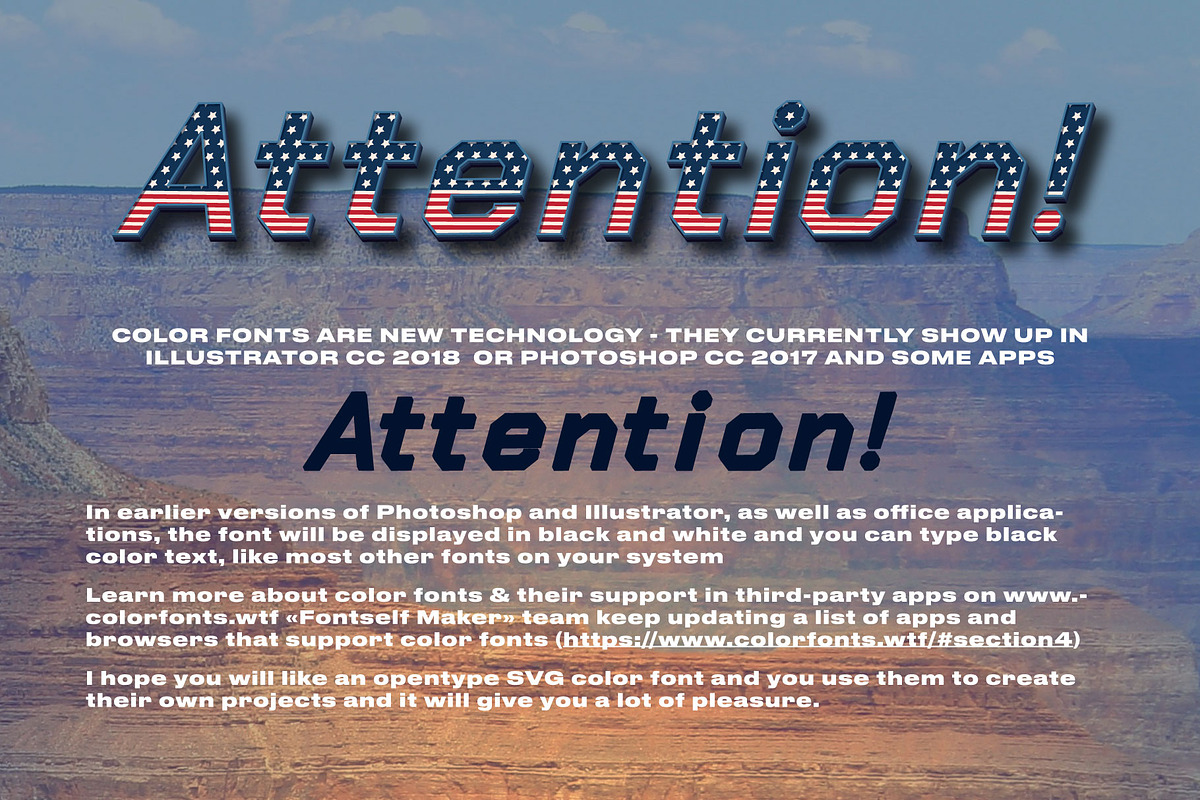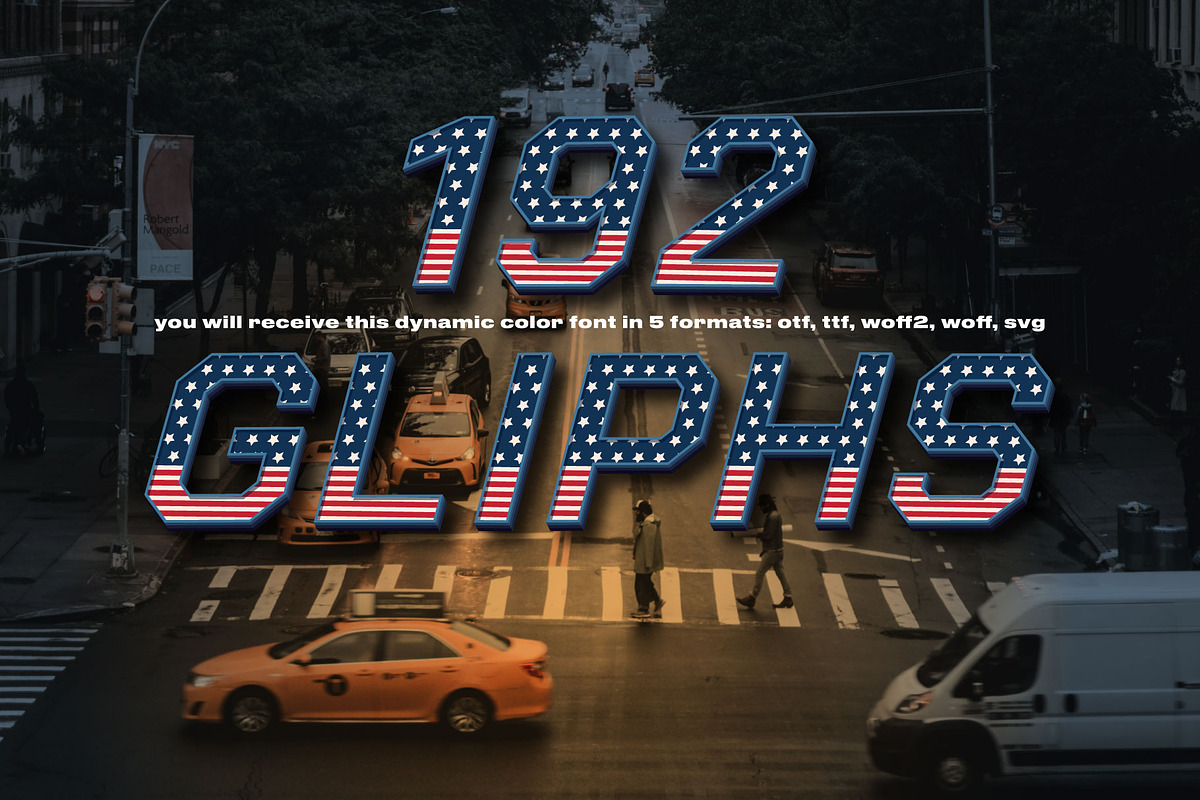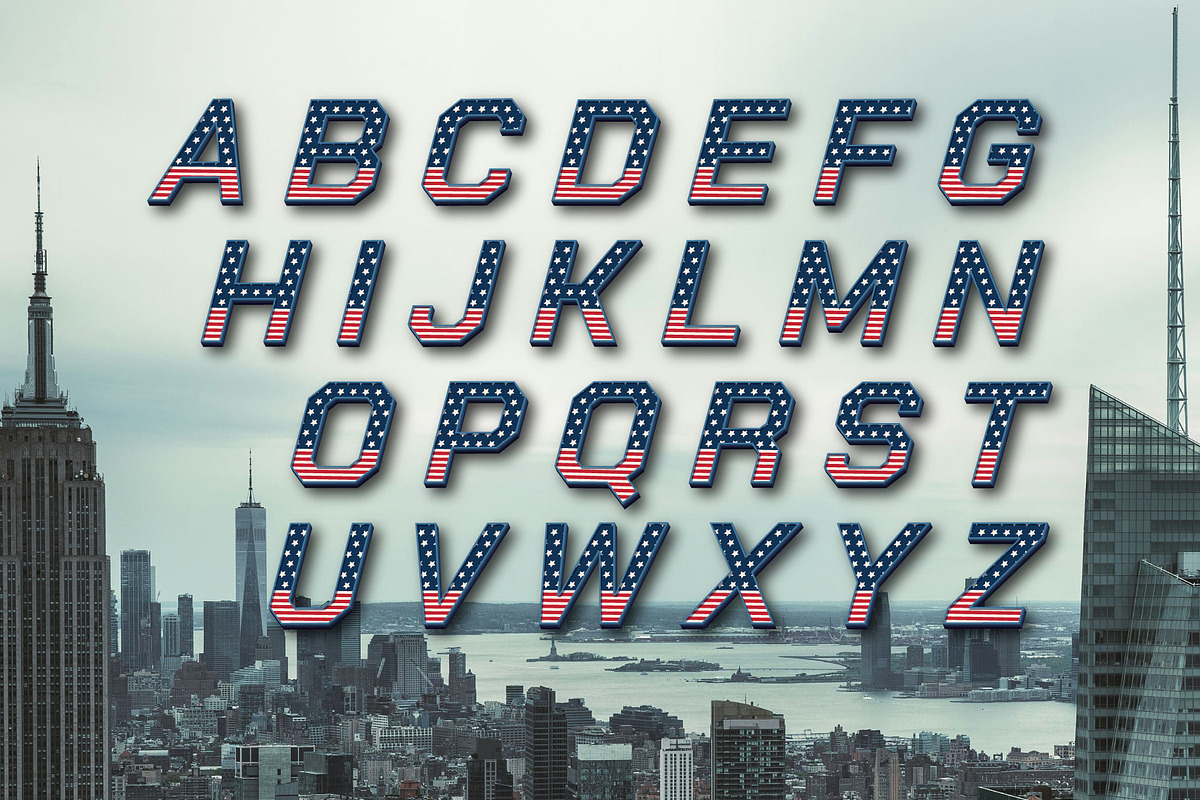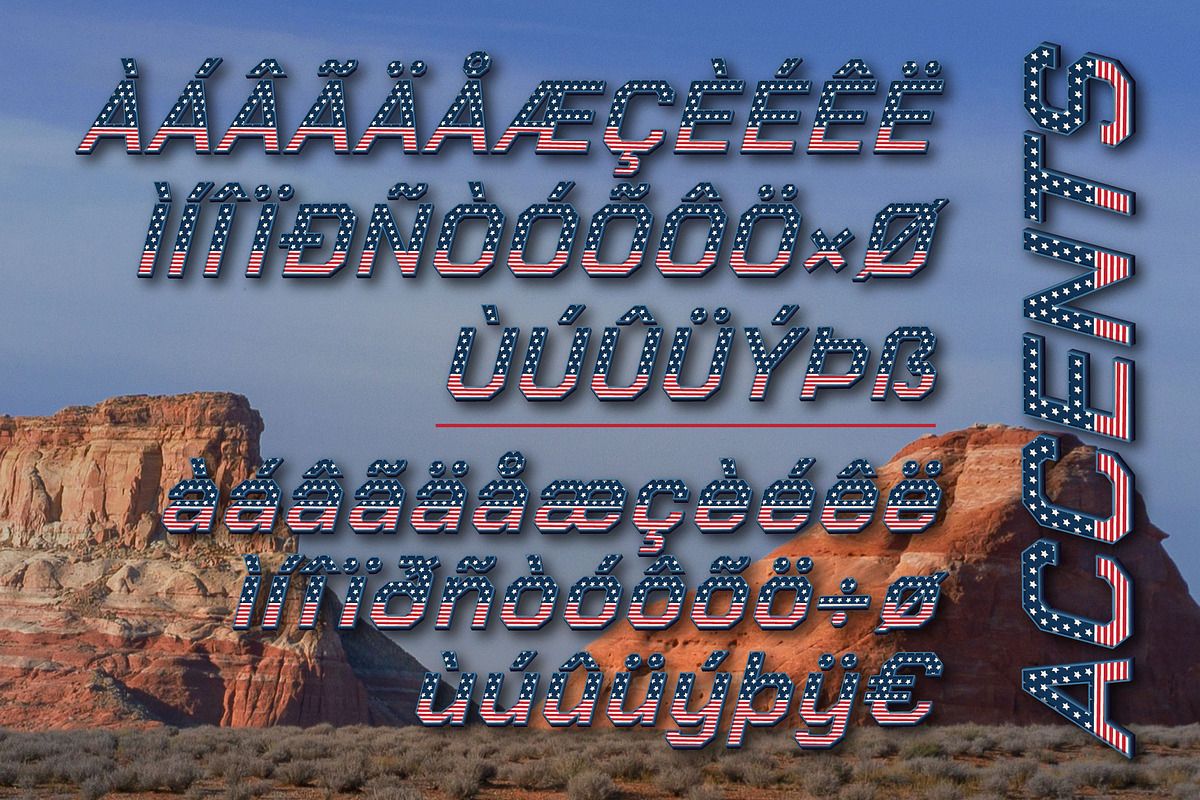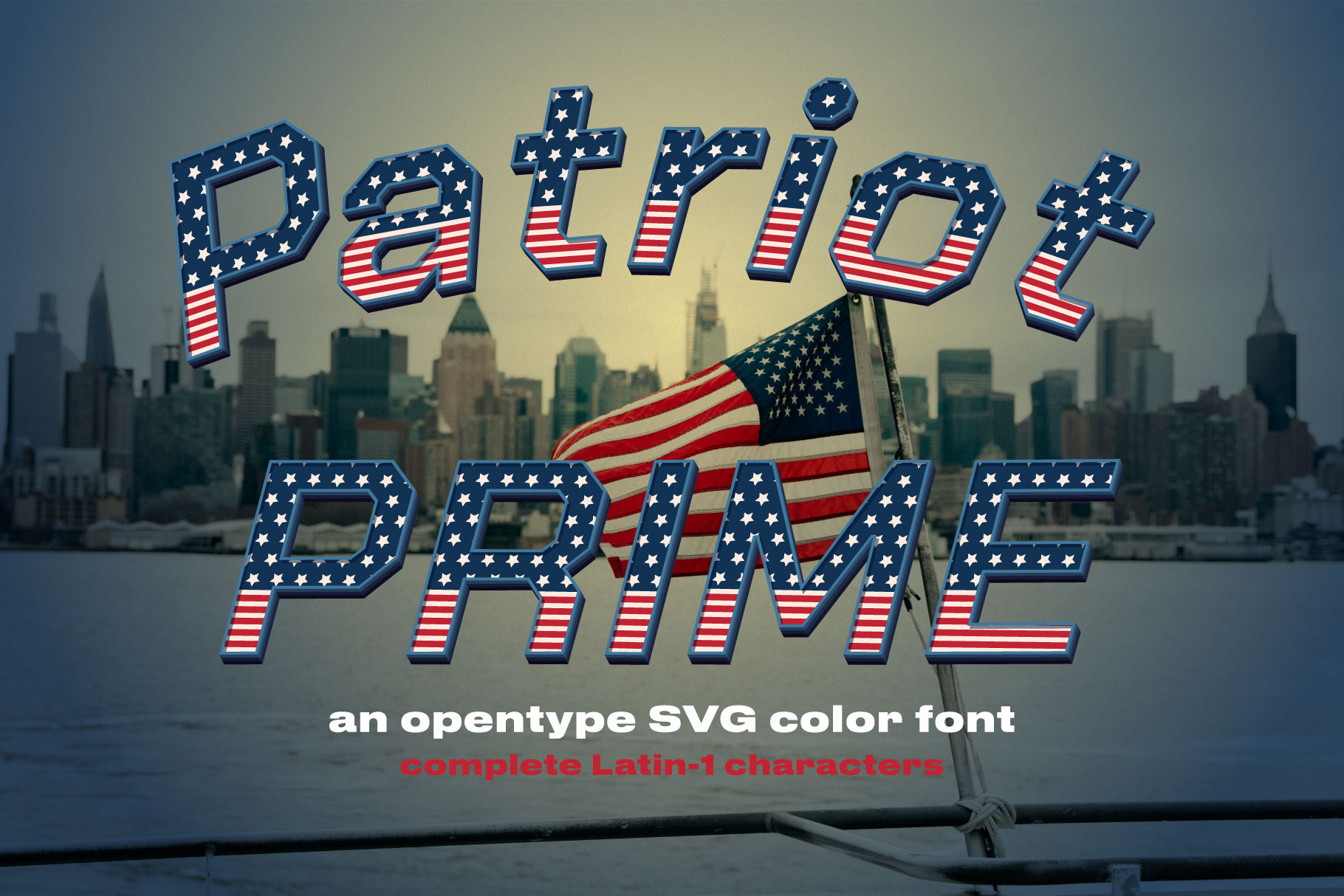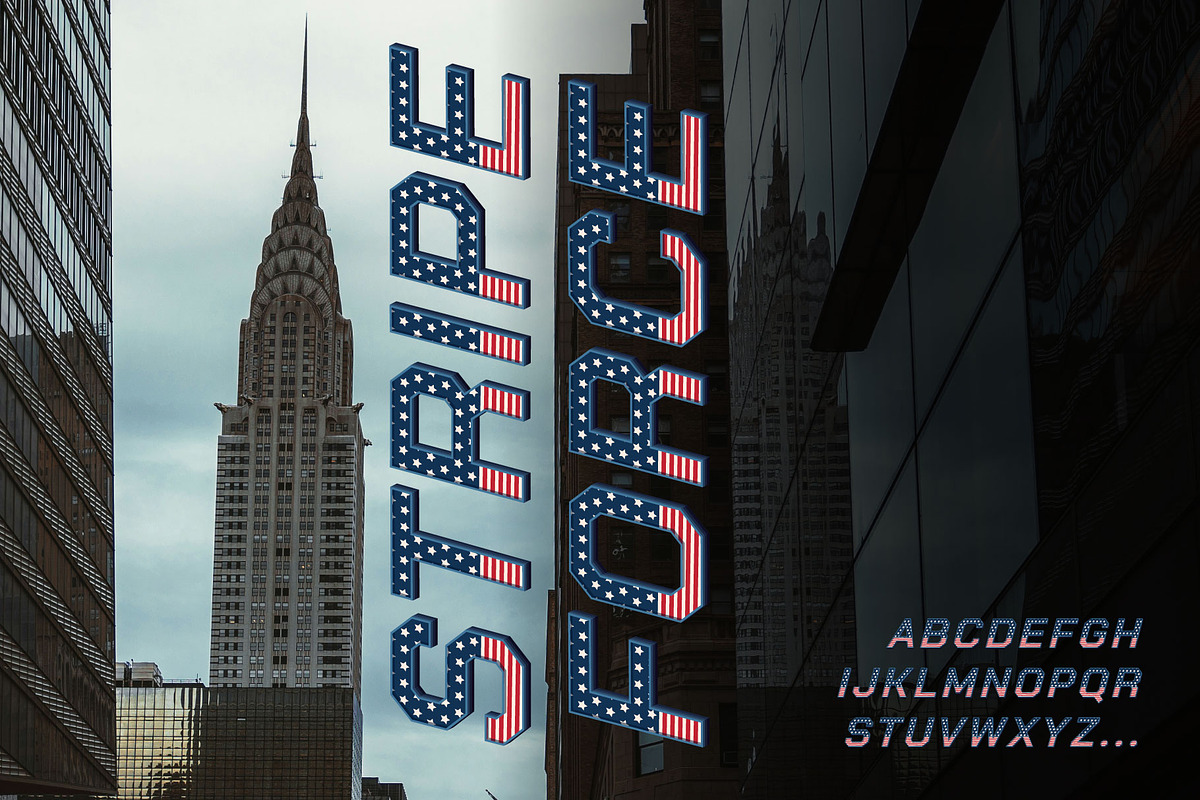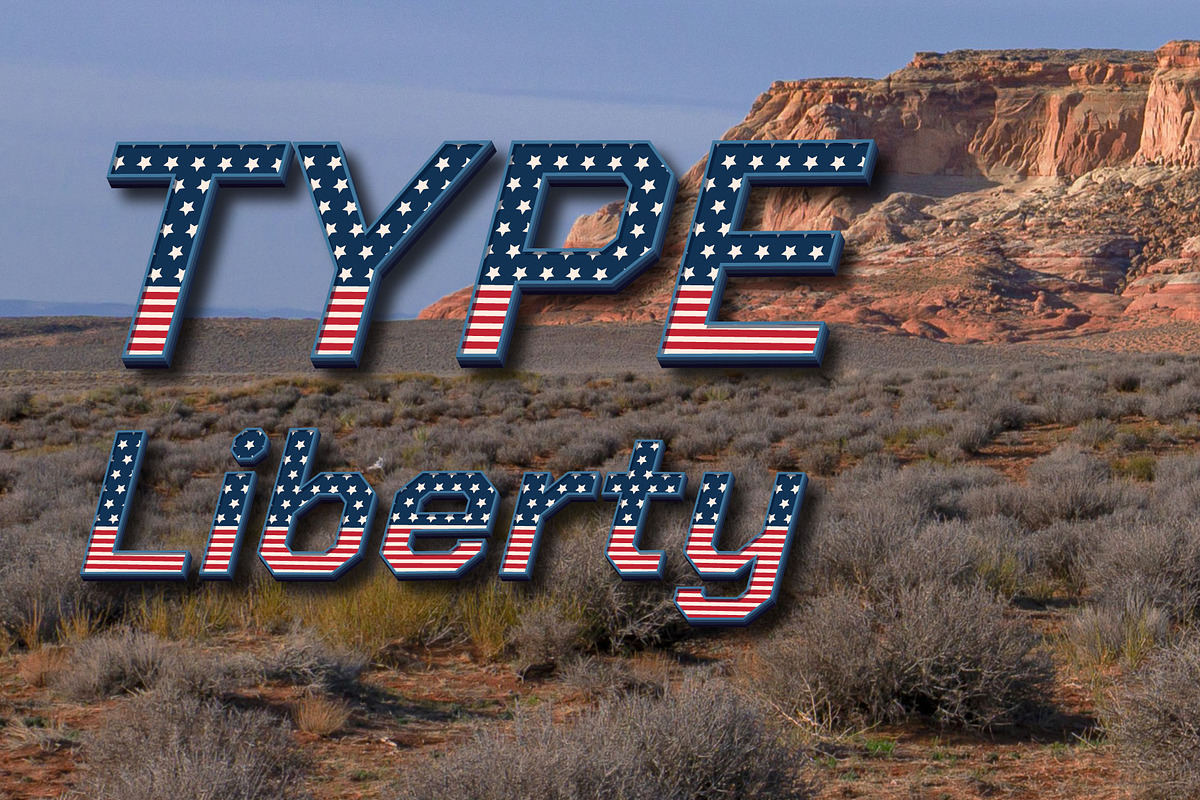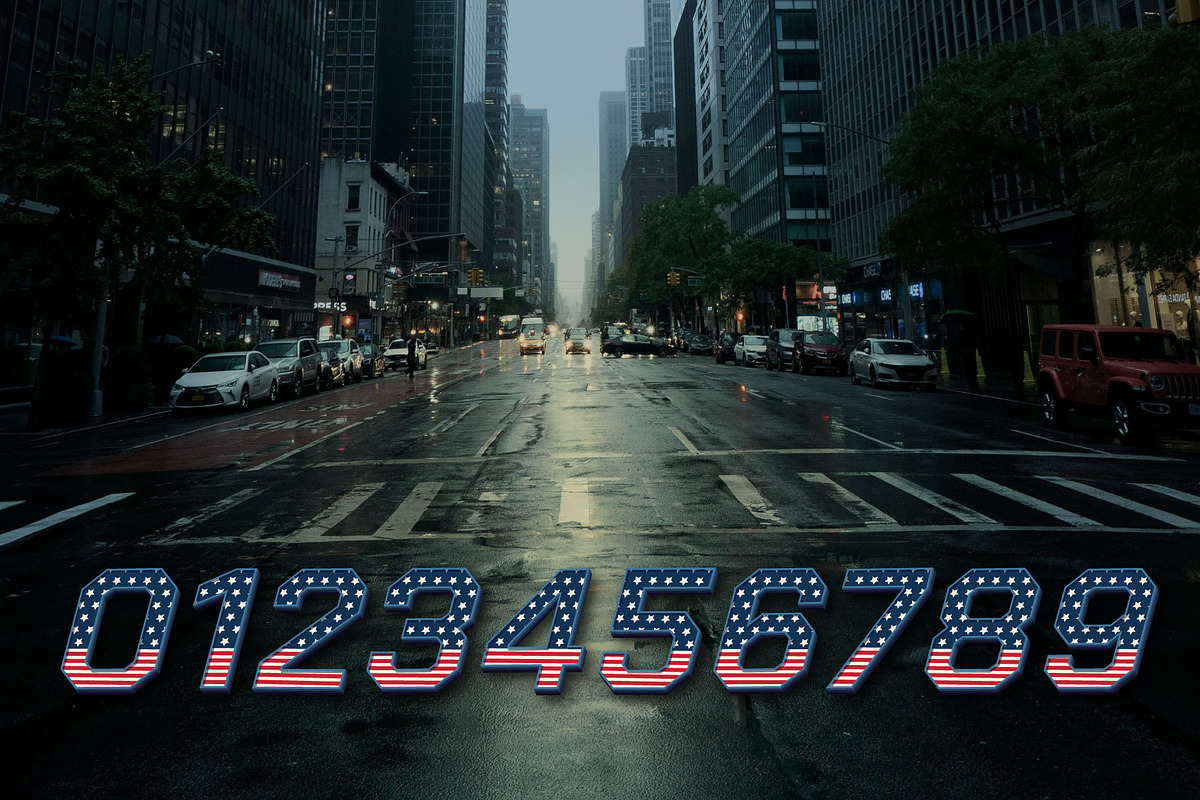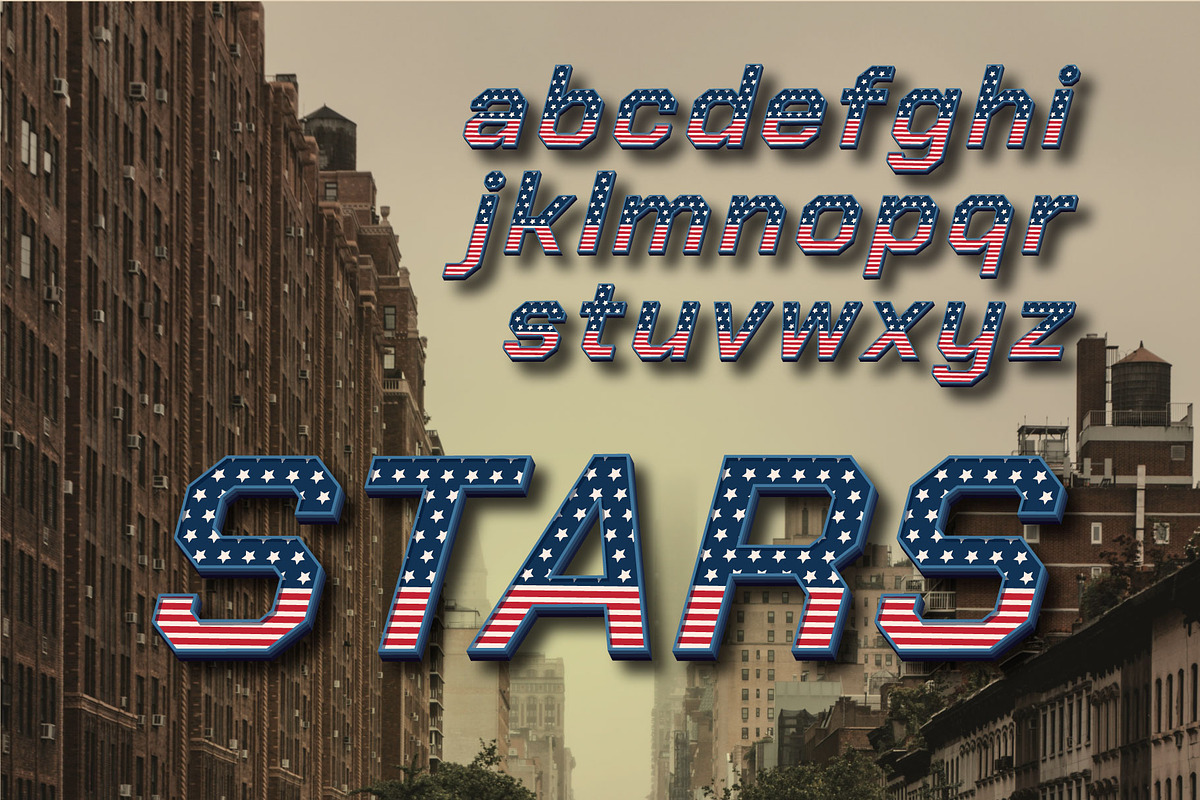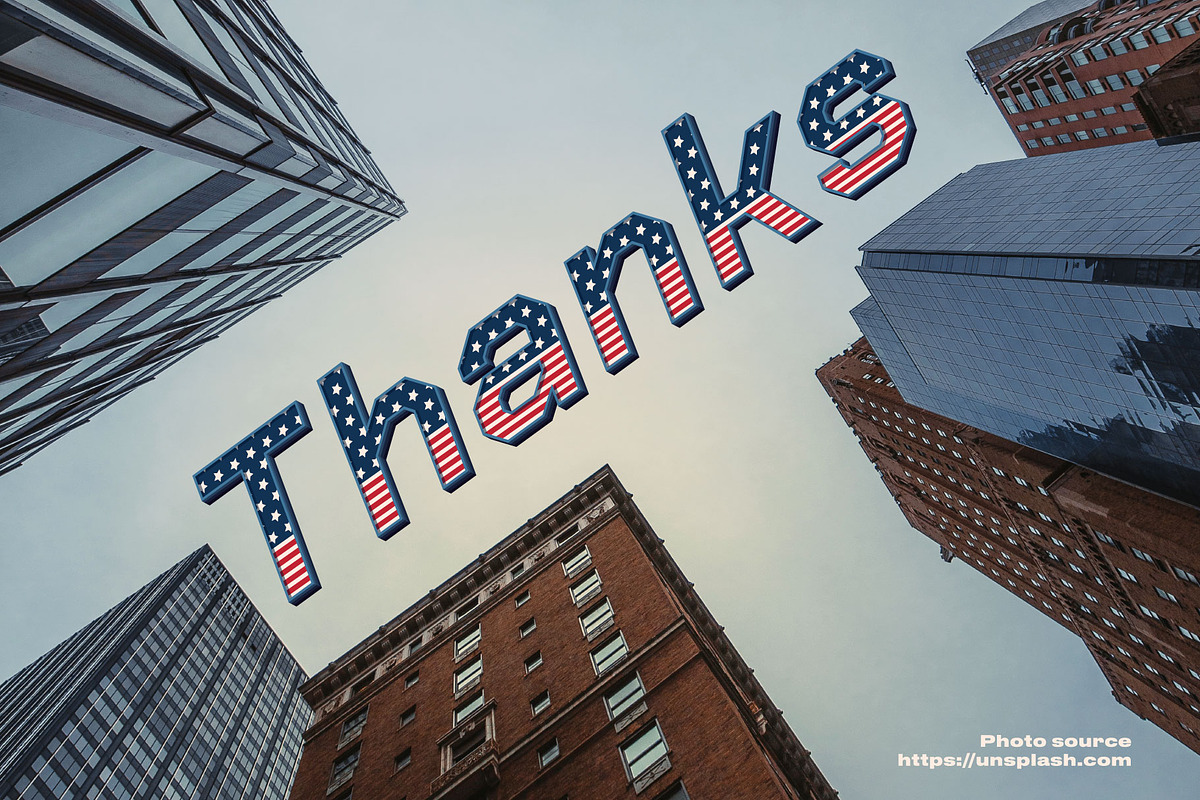
Patriot Prime color font
PATRIOT PRIME COLOR opentype SVG color font.
By creating Patriot colorful font I was inspired by the holiday by the day of US independence, on 4th of July. You can use this font for your design, quotes prints on t-shirts, modern typography posters, children posters and lovely cards and… other. You will receive this ransom font in 5 formats: otf, ttf, woff2, woff, svg Try the new dynamic font :)
OpenType Font was designed with Fontself Maker in Illustrator CC. Contains CAPITALS & STRINGS letters, NUMERALS & DIGITS, PUNCTUATION, MULTILINGUAL, STANDART AND DISCRETIONARY LIGATURES.